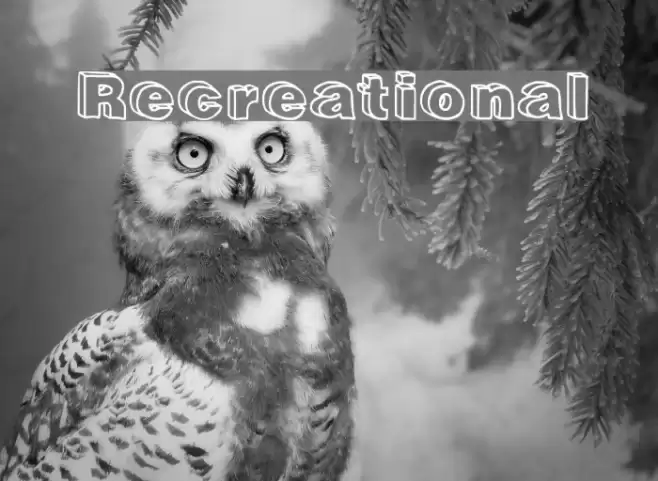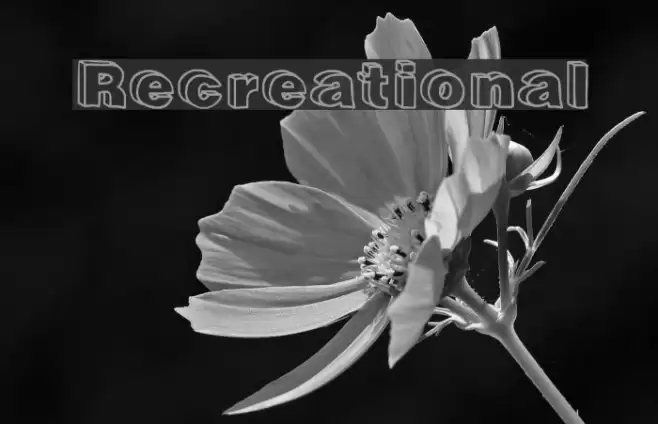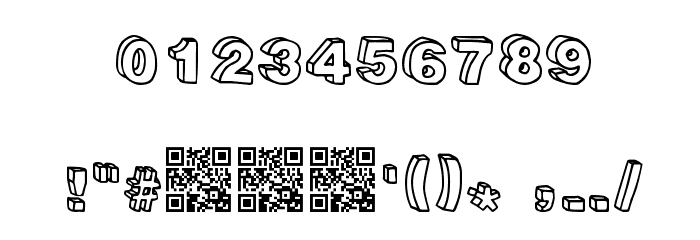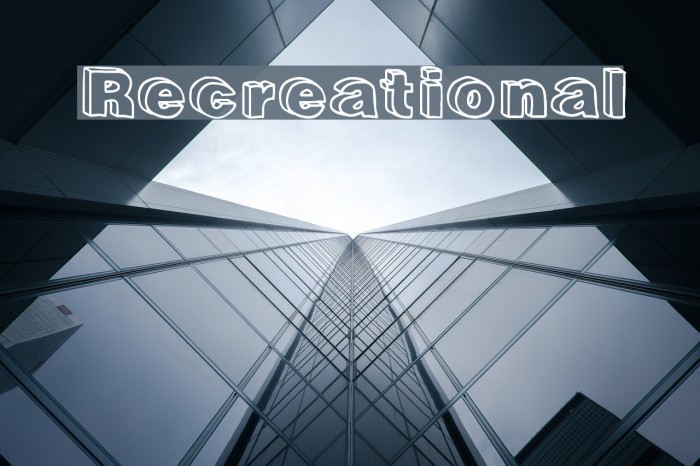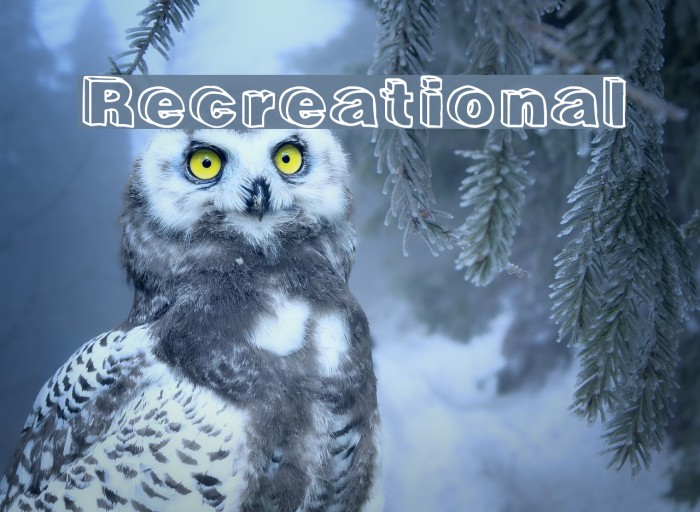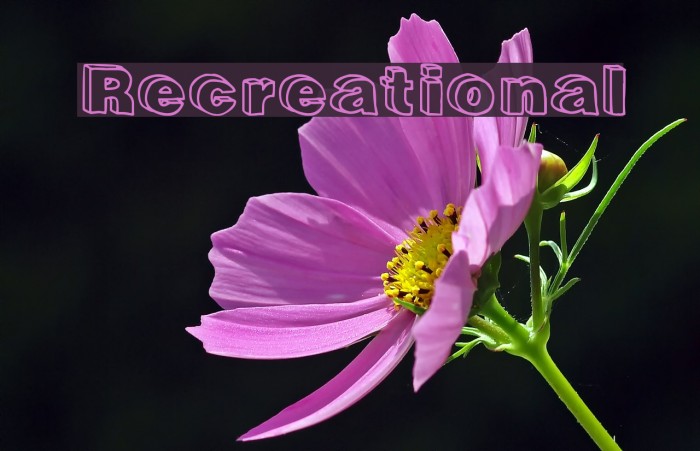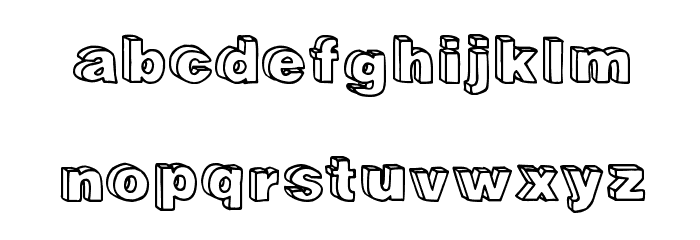
Recreational Font
Recreational Description
This font features a bold, playful style with a three-dimensional effect that gives each character a sense of depth and volume. The letters are outlined, creating a hollow appearance that adds to the dynamic and engaging look. The uppercase and lowercase letters maintain a consistent style, with rounded edges and a slightly condensed form. The numbers and special characters follow the same design principles, ensuring uniformity across all elements. This font is ideal for projects that require a fun and lively aesthetic, making it perfect for children's books, posters, and creative branding.
A bold, playful font with a 3D outlined effect, perfect for lively designs from Cartoon fonts.
- Proposed Projects: Children's books, posters, creative branding, party invitations.
- Overall Style: Playful, Fun